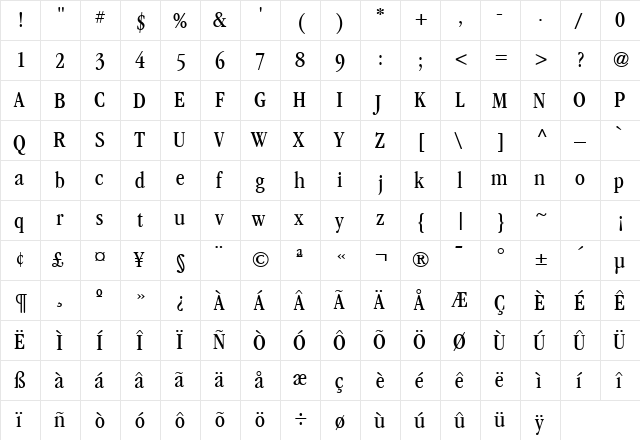
GarryMondrianCond4 BookSH Font Preview
GarryMondrianCond4 BookSH
Design Context for GarryMondrianCond4 Typeface
GarryMondrianCond4 offers clean, dependable letterforms without strong stylistic allegiance, making it a practical choice for designers who need flexibility. The condensed width makes it efficient for tight spaces without sacrificing legibility.